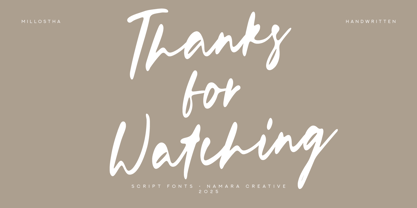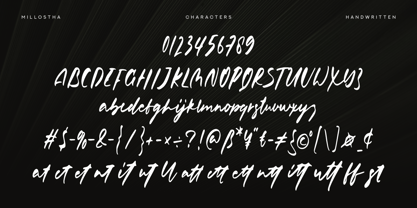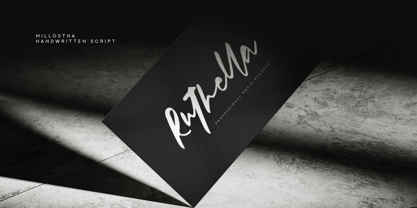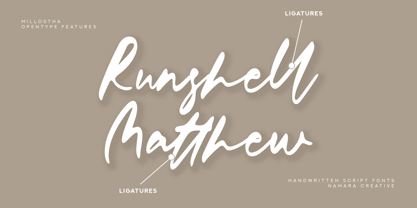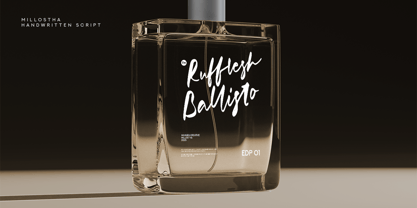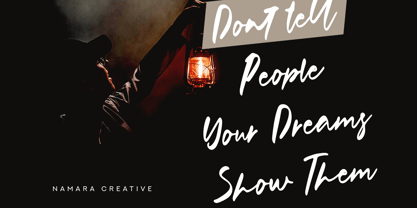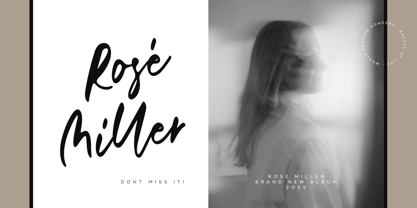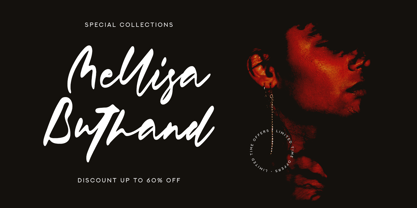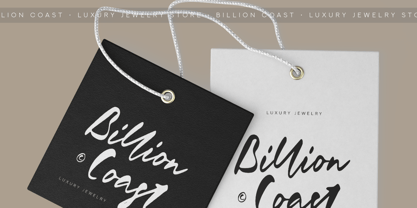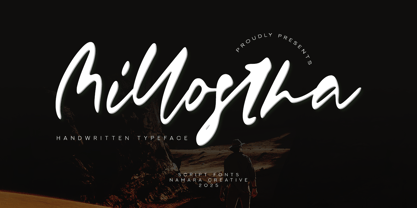
Millostha
by Namara Creative Studio
The Millostha Font Family was designed by Toni Setiawan and published by Namara Creative Studio. Millostha contains 1 styles.
🌙 Millostha – Handwritten Script Font for Branding, Quotes, and Social Media Design ✍️✨ Say hello to Millostha, a stunning handwritten script font that blends bold personality with elegant brushstroke charm. Designed to look effortlessly stylish, Millostha is perfect for adding a personal touch to your design projects—from branding and logo design to Instagram quotes, wedding invitations, and product packaging. With smooth curves and natural flow, this handwritten font gives your text an authentic, human feel—ideal for creatives who love a modern yet handcrafted aesthetic. What You’ll Get: - Uppercase, Lowercase Glyphs - Punctuation & Numbers - Ligatures & Multilingual Support Bring your words to life with the expressive energy of Millostha – download now and start creating magic!
Designers: Toni Setiawan
Publisher: Namara Creative Studio
Foundry: Namara Creative Studio
Design Owner: Namara Creative Studio